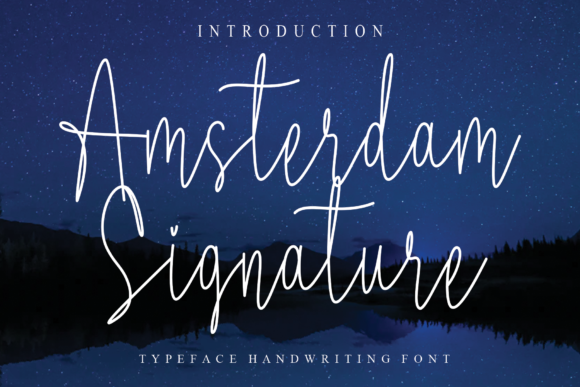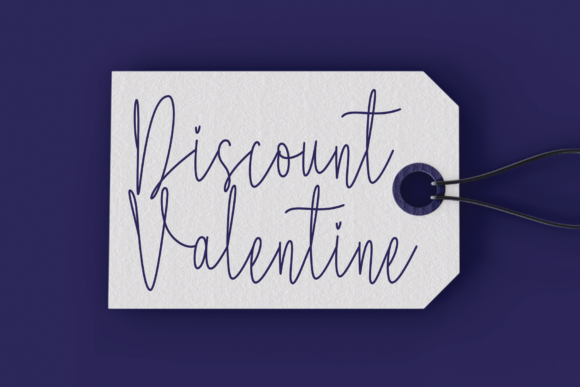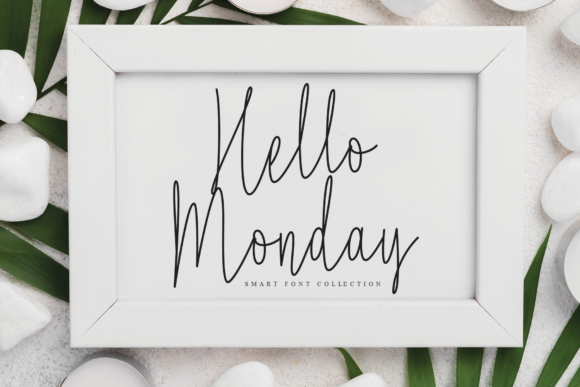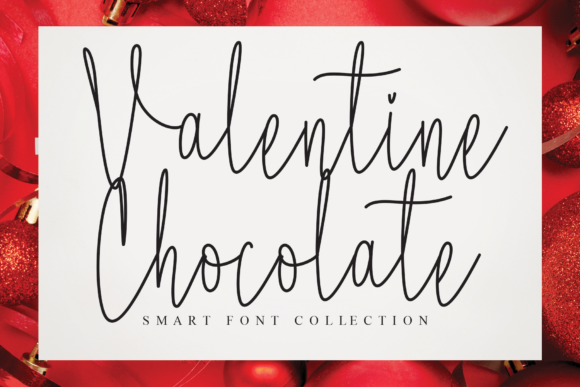
Amsterdam Signature Font
About Amsterdam Signature Font
Amsterdam Signature is a unique and elegant handwritten font. It has a clean, thin and smooth vibe and it will be a hit for any design that you want to add it to.